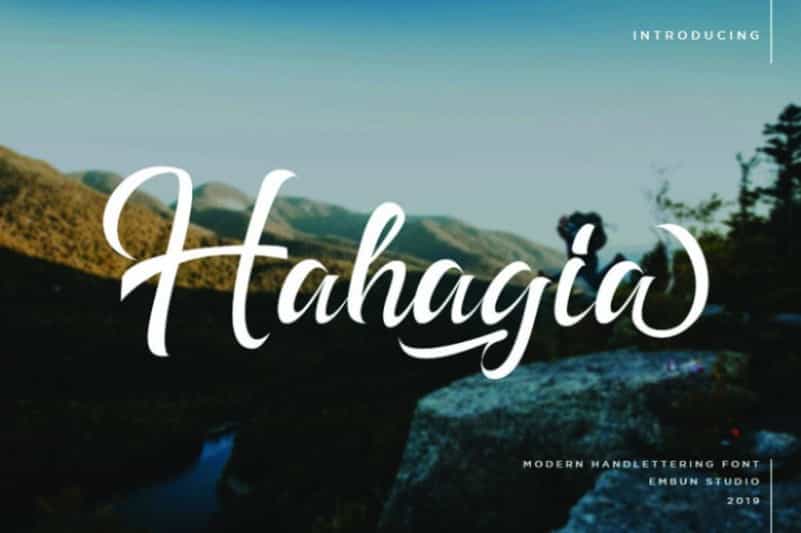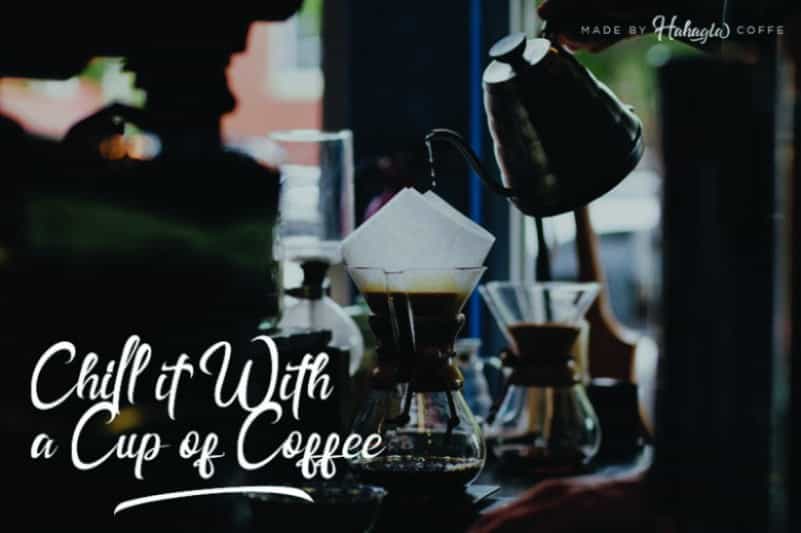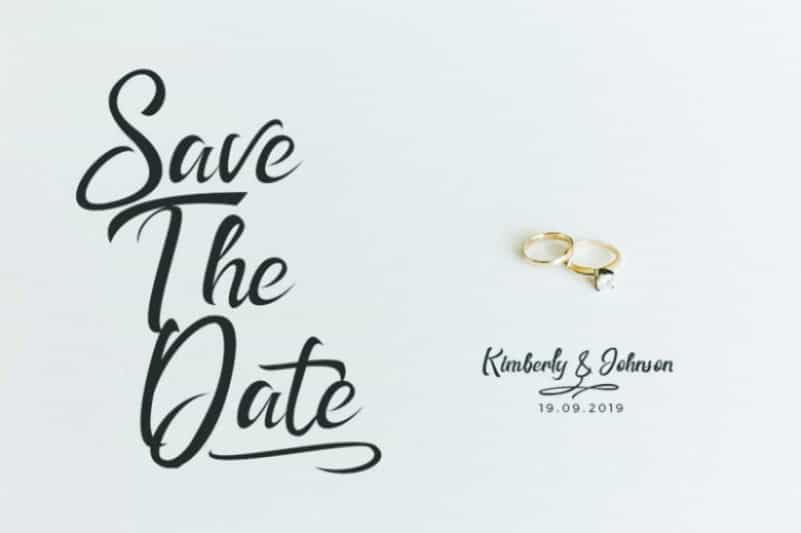
Hahagia is a modern handlettering script font, very suitable for your everyday use, logo, brochures, wedding invitation, suitable for the front of your cafe and many other business projects.